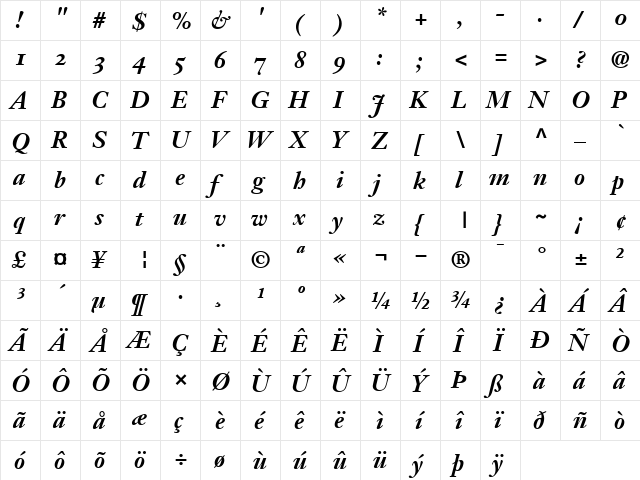
JansonText76OldstyleFigures BoldItalic Font Preview
Design Context for JansonText76OldstyleFigures Typeface
JansonText76OldstyleFigures brings classic typographic sensibility to the table — its serifs and measured letterforms reflect centuries of print heritage. The slanted form adds forward momentum and visual energy. The heavy weight commands attention and anchors typographic hierarchies.
Pro Tip: Use JansonText76OldstyleFigures for editorial body copy and considered headline work. Pair with a neutral sans for UI elements or captions to create a classic hierarchy.